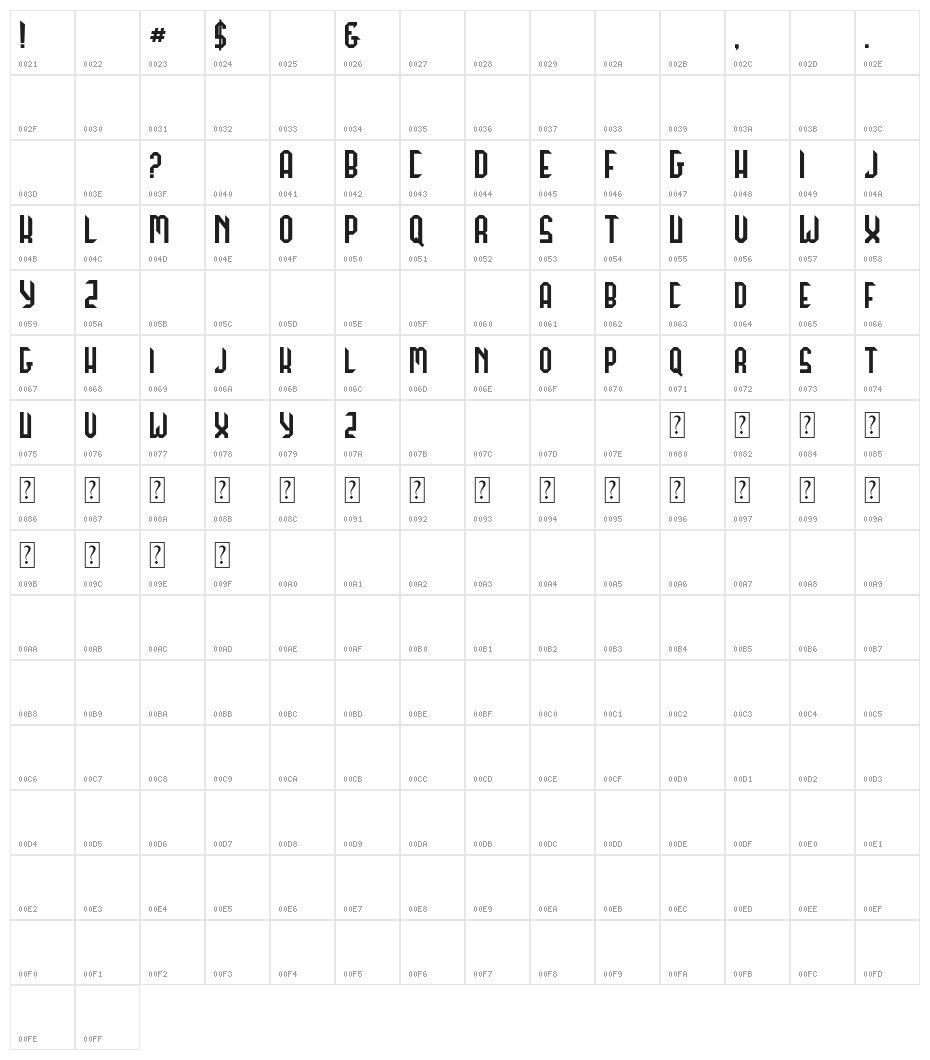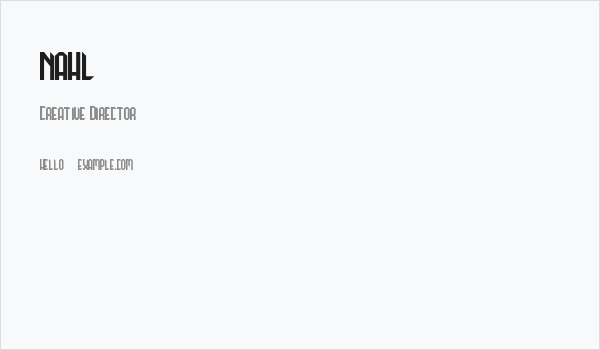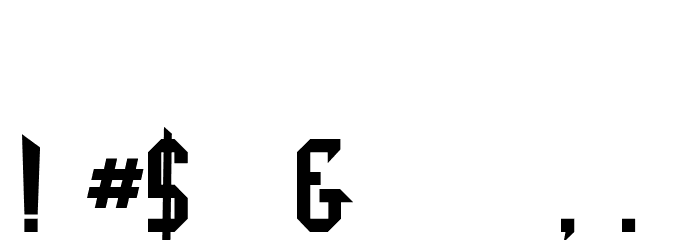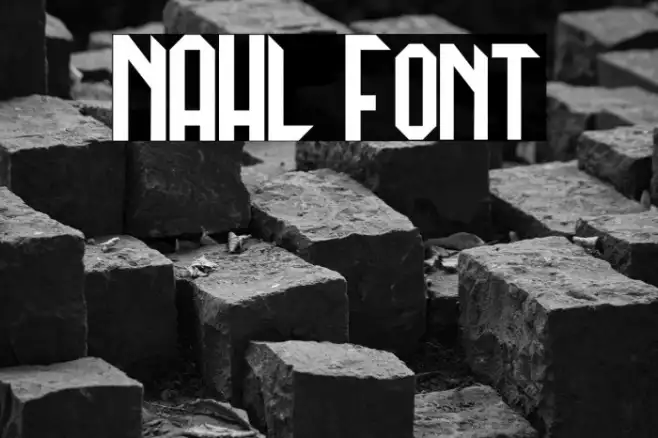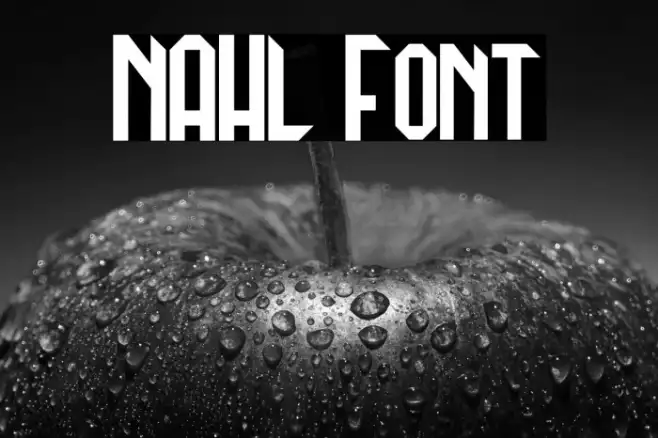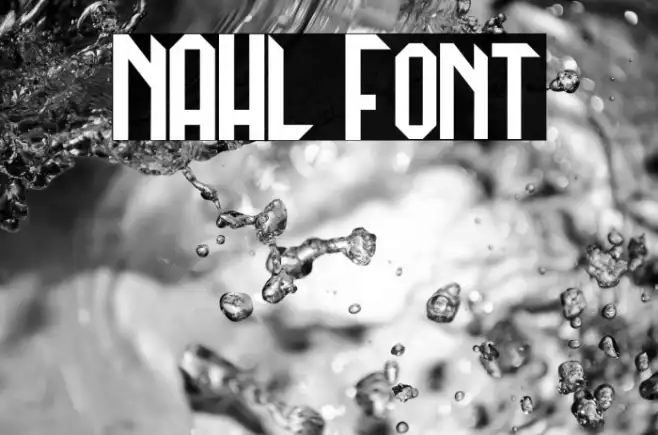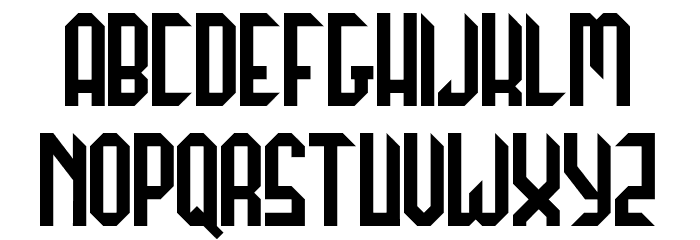
NAHL Font
NAHL Description
This font exhibits a bold and geometric style, characterized by sharp angles and a strong presence. The uppercase letters are uniform in height and width, creating a cohesive and structured appearance. The lowercase letters maintain the same angular design, ensuring consistency throughout the typeface. The numbers follow the same geometric pattern, making them easily distinguishable. Special characters are designed to match the overall aesthetic, with a focus on maintaining the bold and angular theme. This font is ideal for projects that require a modern and impactful look.
| Proposed Projects | Ideal for branding, posters, headlines, and any design requiring a strong visual impact. |